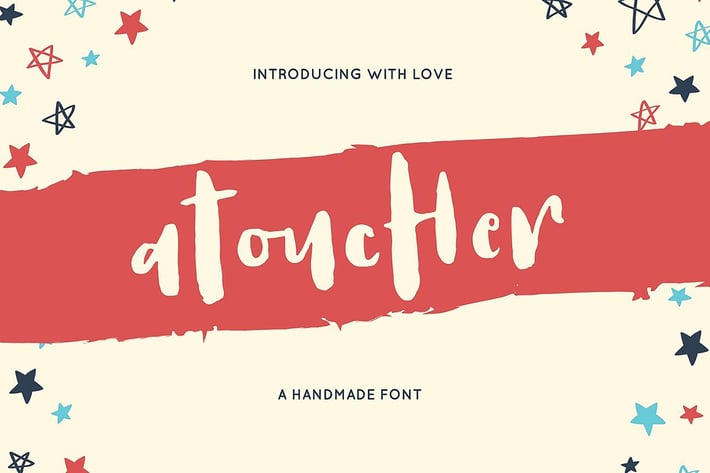
Atoucher Love Font + Webfonts
Introducing Atoucher Love Fonts
A handrawn brush font style, designed especially for you. For designers, instagramers, bloggers, youtubers, fashion lovers or somebody who Loves Fresh design.
Every creative love something new. Thats why We love handmade and freestyle designs, because it will make us look Unique and Fresh. So here we are, Atoucher Love Fonts ready to make our design Shine and Up to date.
Atoucher Love Fonts suitable for any modern design such as for ad banner, modern card, invitation, announcement, seasonal design, social media promotion, web design, branding and logo stylist and many more.